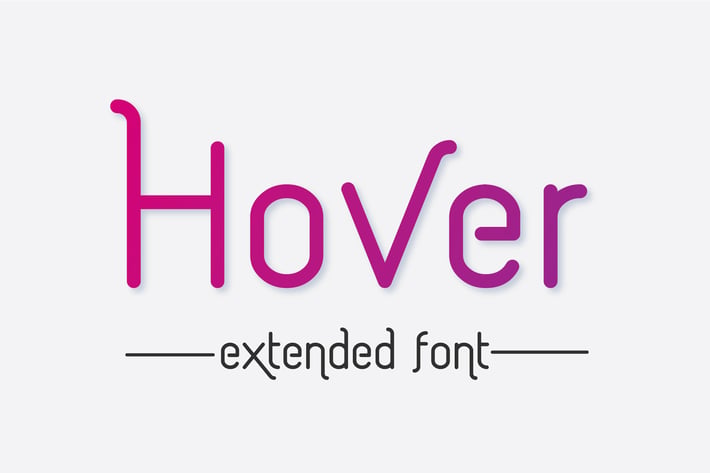
Hover Extended font
Hover extended font is unique and decorative display font. It will create playful mood and give itβs own unique character to your new project. Hover is great for creating eye catching headlines, logos, identities and packaging design.